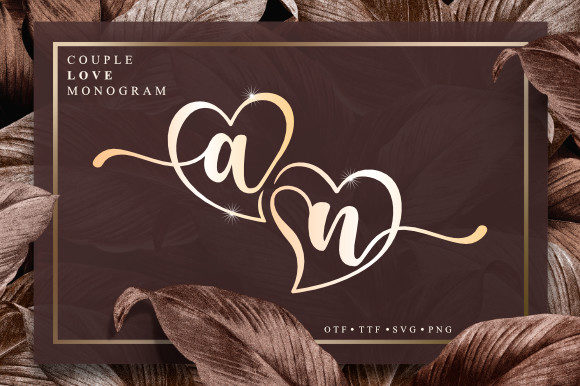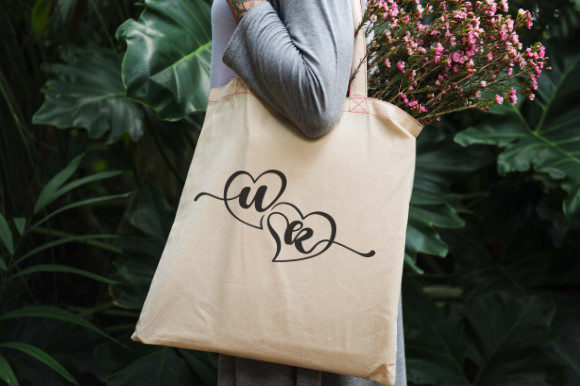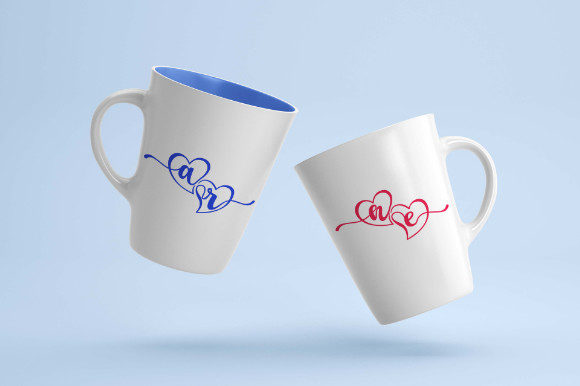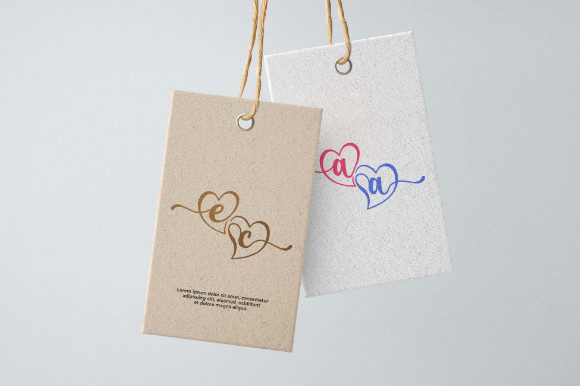
Couple Love Monogram Font
About the Couple Love Monogram Font
Introducing the Couple Love Monogram Font, a beautifully crafted typeface designed to elevate your creative projects. Couple Love Monogram is a romantic and unique decorative font, perfect for so many crafty ideas! Use it for logos, branding, invitations, stationery, wedding designs, social media posts, advertisements, product packaging, labels, watermarks, Valentine’s Day, or anything else.
Its decorative nature makes it ideal for headlines, short text blocks on invitations or packaging, and logos requiring a romantic feel. Avoid using it for body text or lengthy paragraphs; its ornate style would hinder readability. Consider using it for branding projects focused on weddings, luxury goods, or other romantic concepts.
Couple Love Monogram’s personality is distinctly elegant and romantic. To balance this, pair it with a clean sans-serif like Lato for body copy or a simple serif like Playfair Display for supporting text, creating a sophisticated contrast. For a more playful approach, consider pairing it with a script font like Great Vibes for a handwritten feel.
The font’s inherent ornamentation lends itself well to projects emphasizing visual appeal over large amounts of text. Therefore, applications like social media graphics, product labels, or wedding stationery are highly suitable.
Couple Love Monogram Font Usage Examples
Couple Love Monogram Font Example